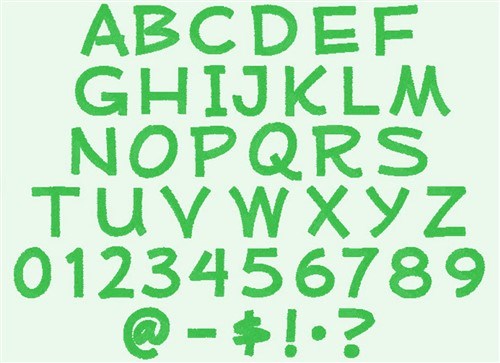
Playful capital letter style with rounded edges, ideal for casual projects on t-shirts and bags. This machine embroidery font is available in BX font and other Embrilliance formats.